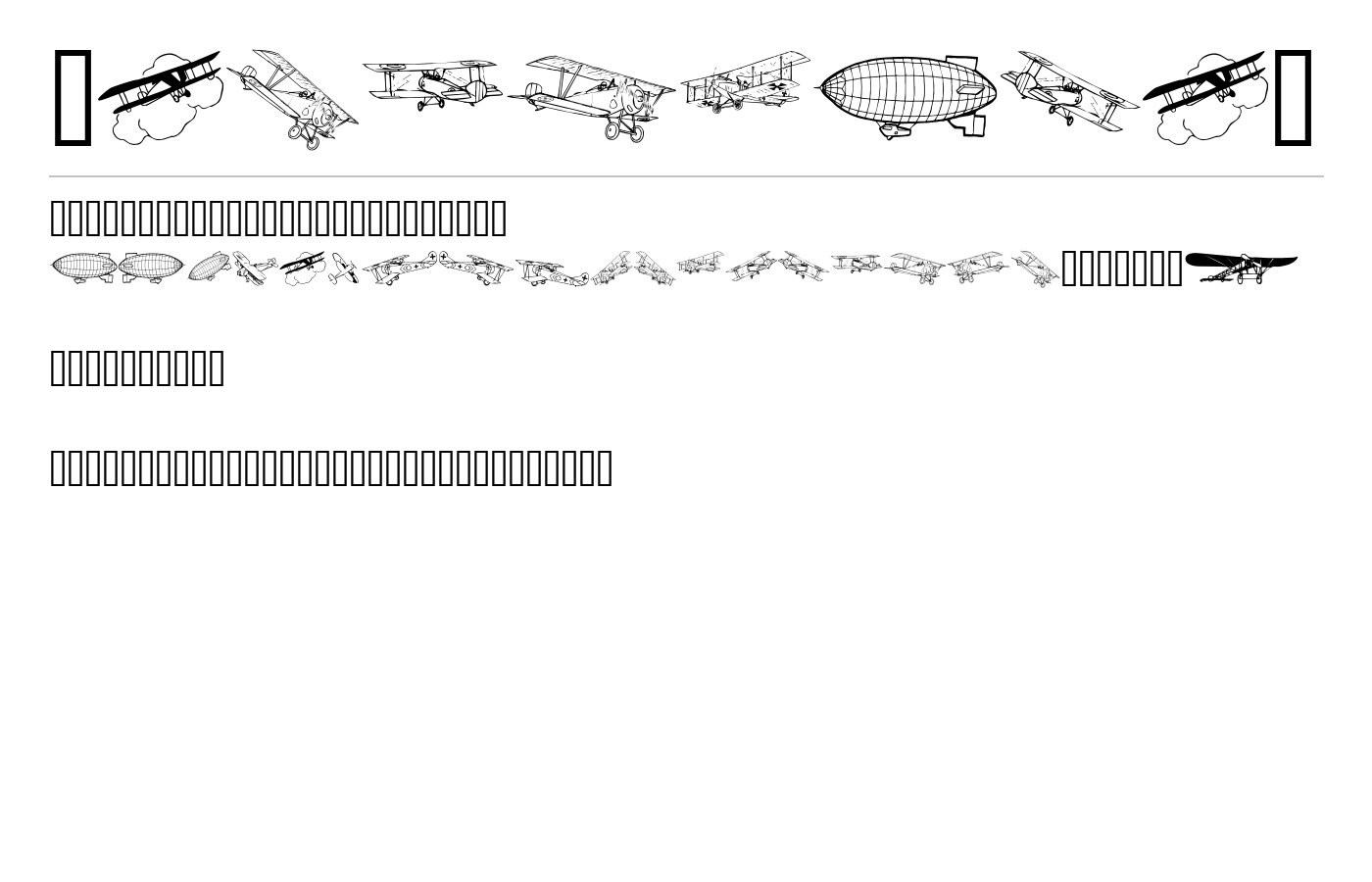
Aeroplanes Font is a playful decorative typeface featuring detailed illustrations of vintage aircraft and airships instead of traditional letterforms. It brings a whimsical, nostalgic feel ideal for designs related to aviation history, travel, or retro themes. Best suited for creative headlines, posters, and themed branding, this unique font adds character and visual interest where a conventional font might feel plain.
Aeroplanes Font
About Aeroplanes Font